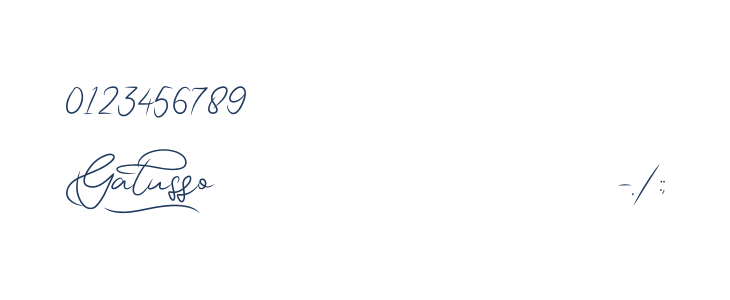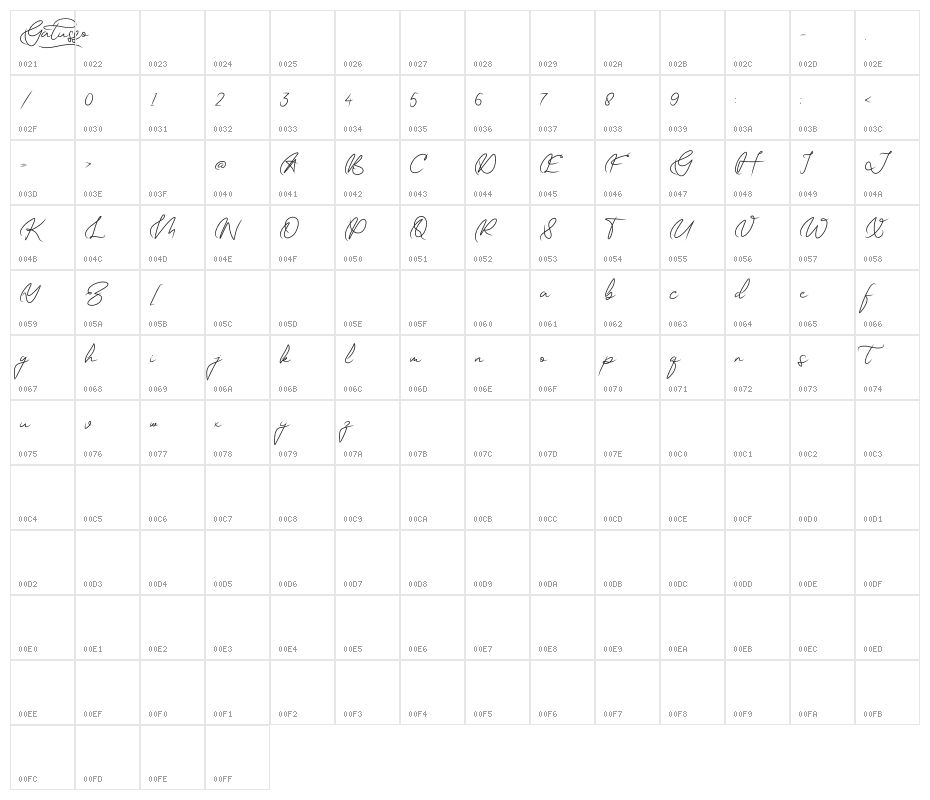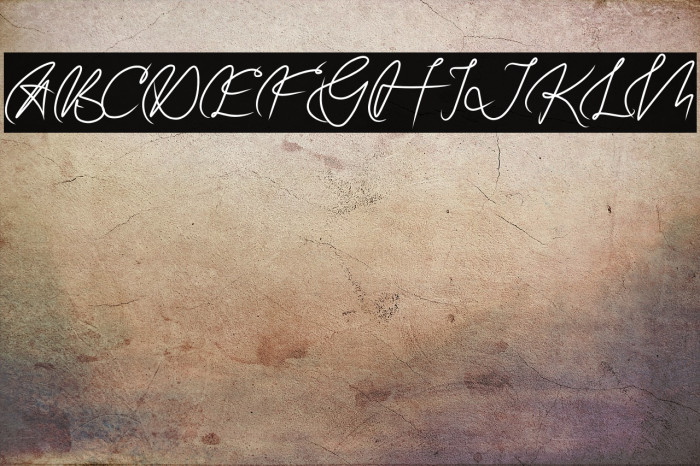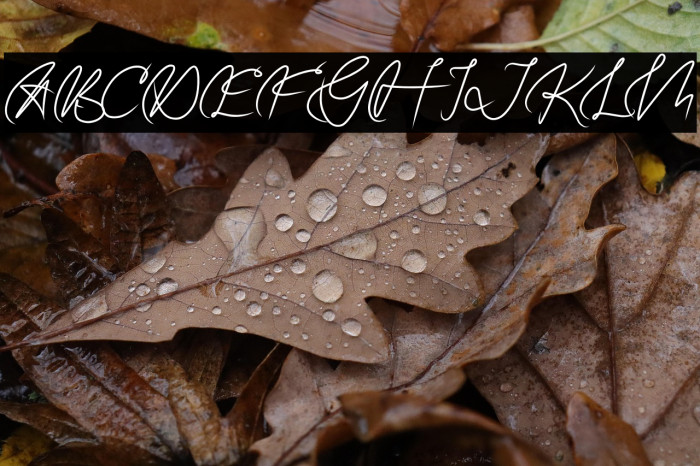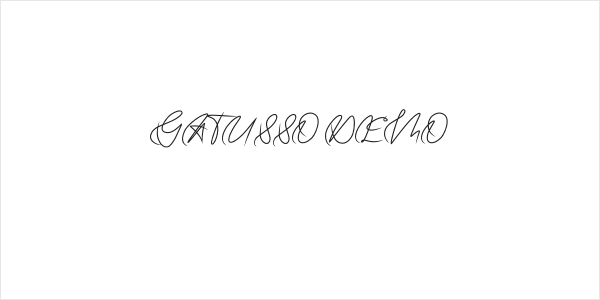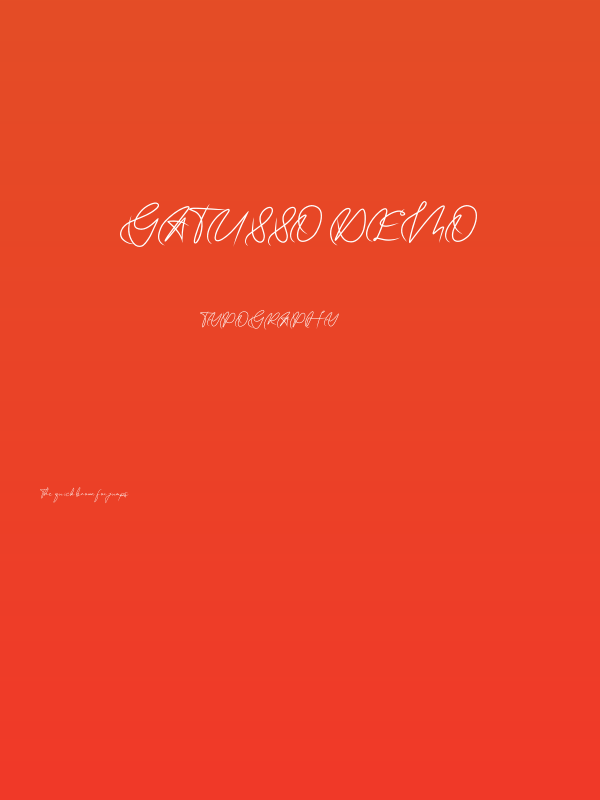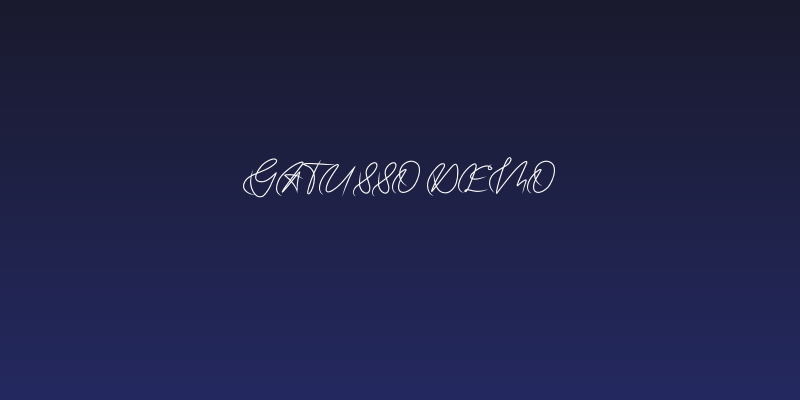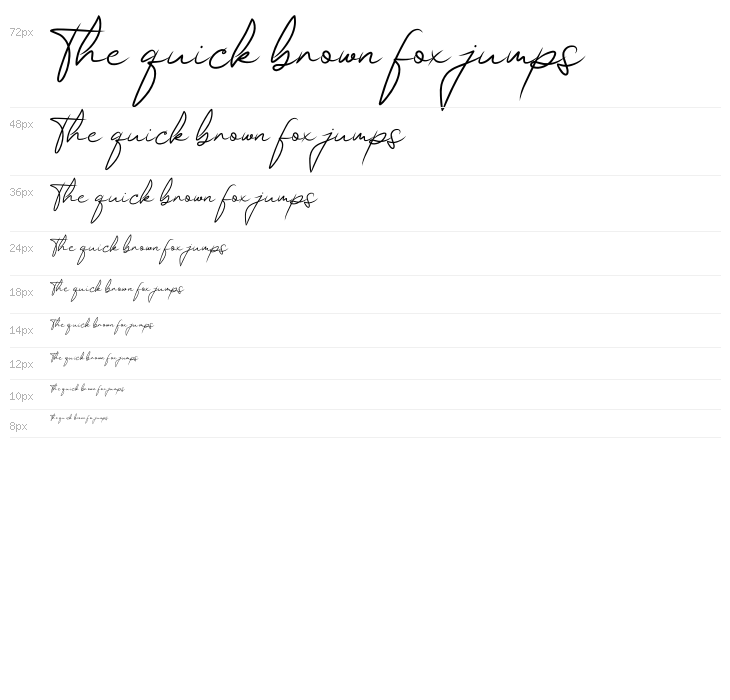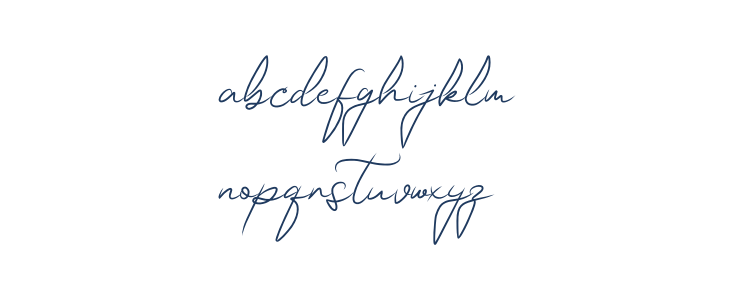
GATUSSO DEMO Font
GATUSSO DEMO Description
This elegant script font exudes a sense of sophistication and fluidity, characterized by its flowing, interconnected letterforms. The strokes are smooth and graceful, with a consistent slant that adds a dynamic feel to the text. The uppercase letters are ornate and slightly larger, providing a striking contrast to the more delicate lowercase characters. The numerals maintain the same elegant style, ensuring consistency throughout. This font's overall appearance is both stylish and refined, making it suitable for a variety of formal and creative applications.